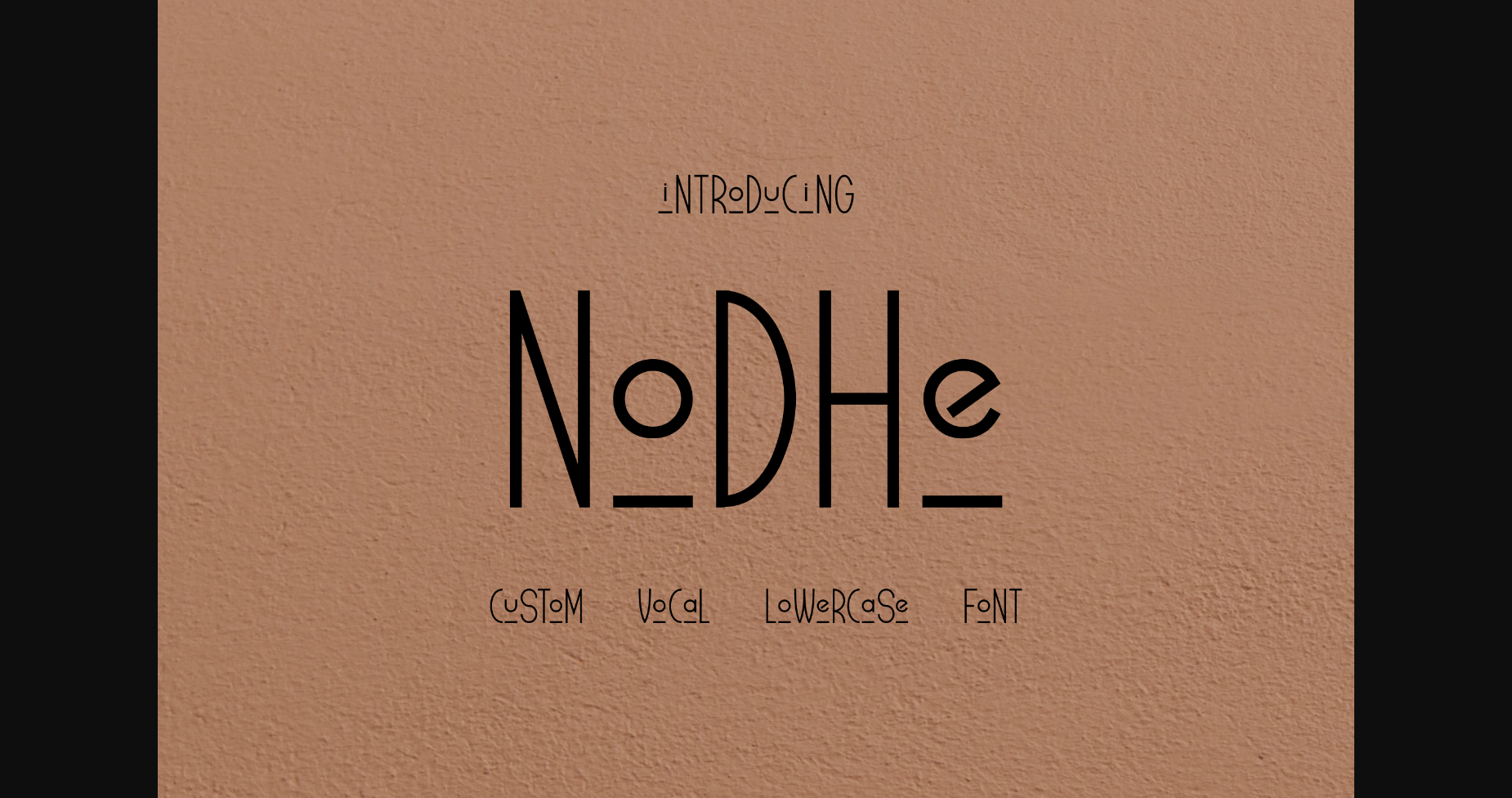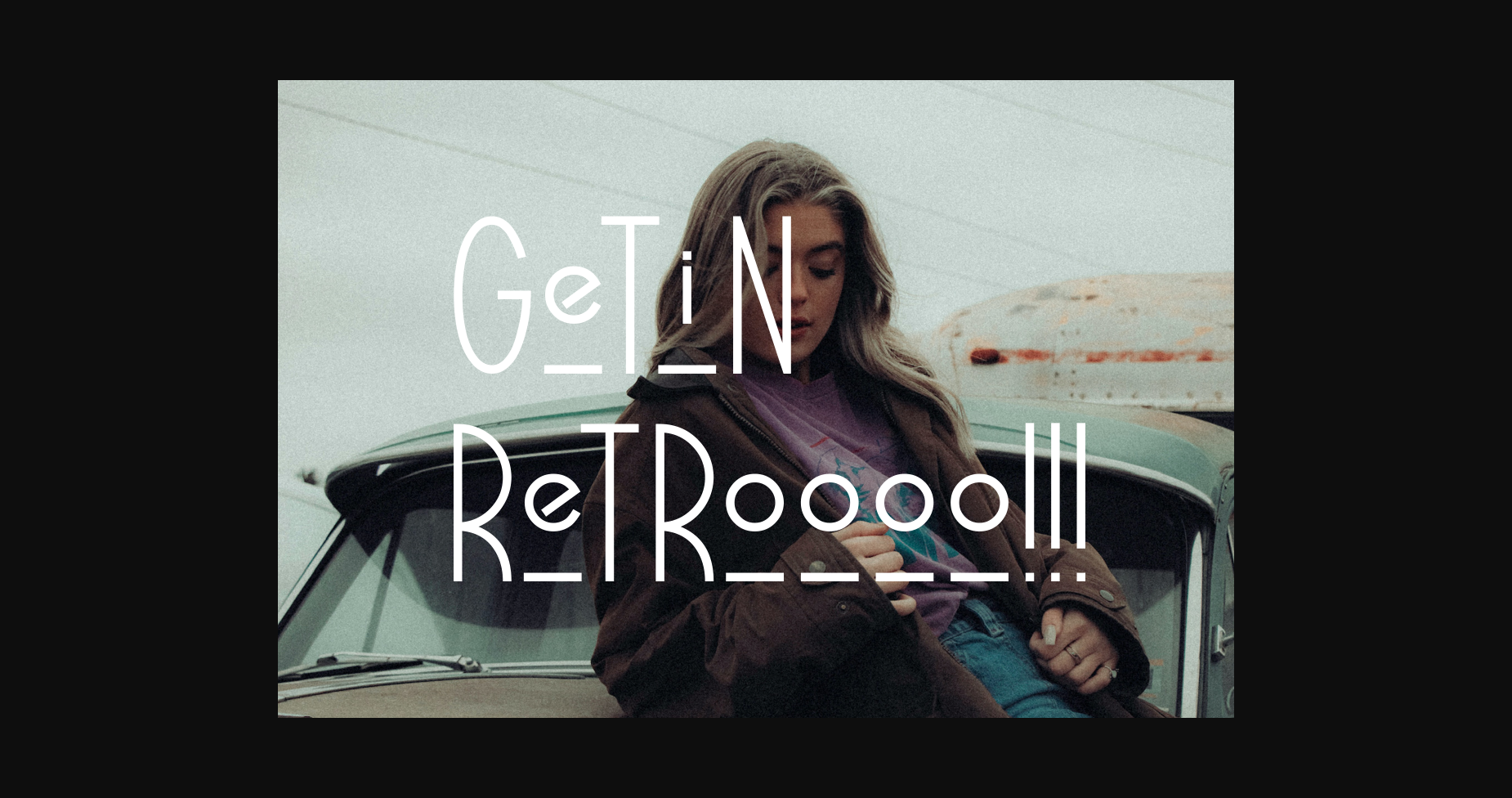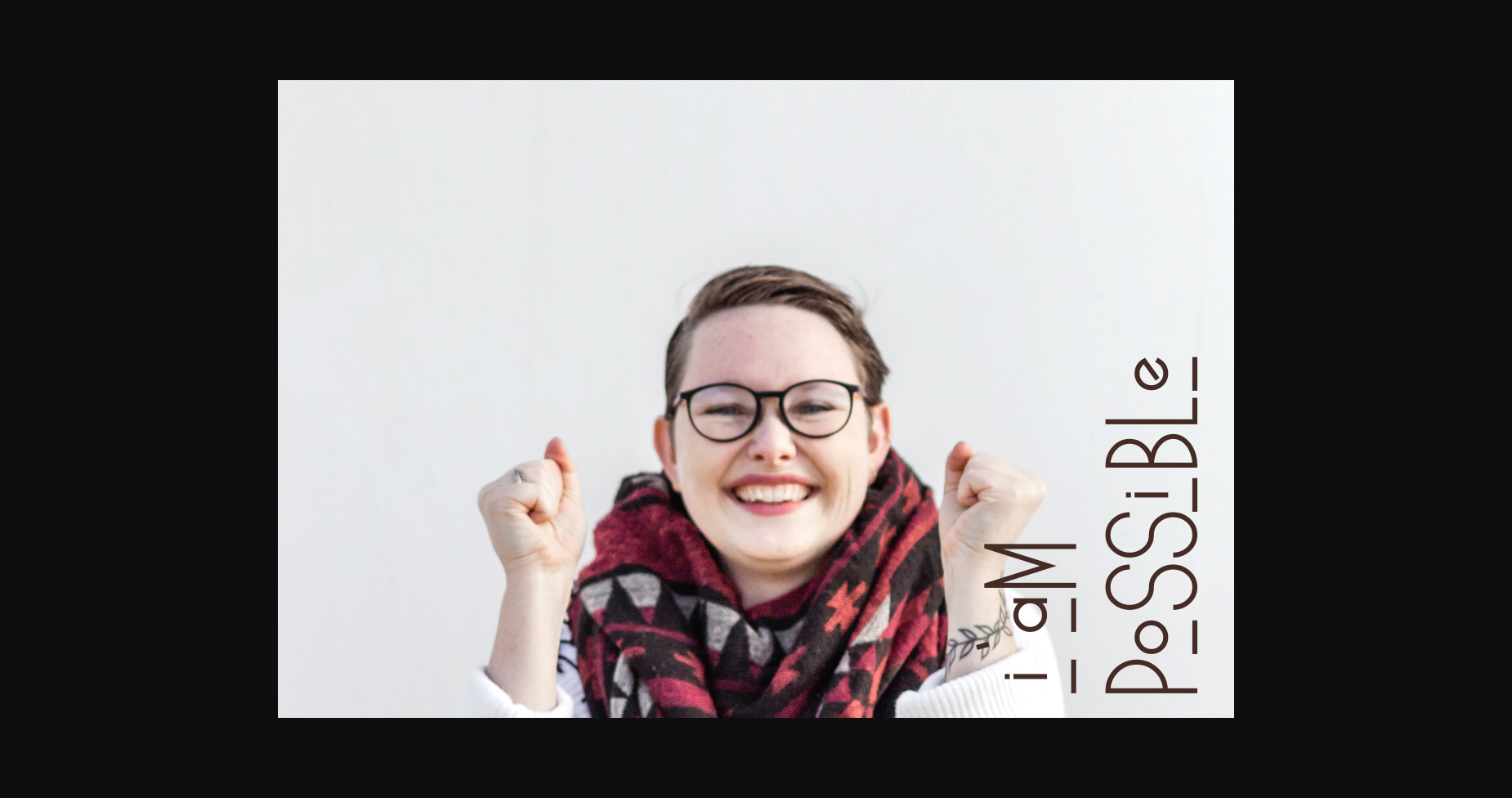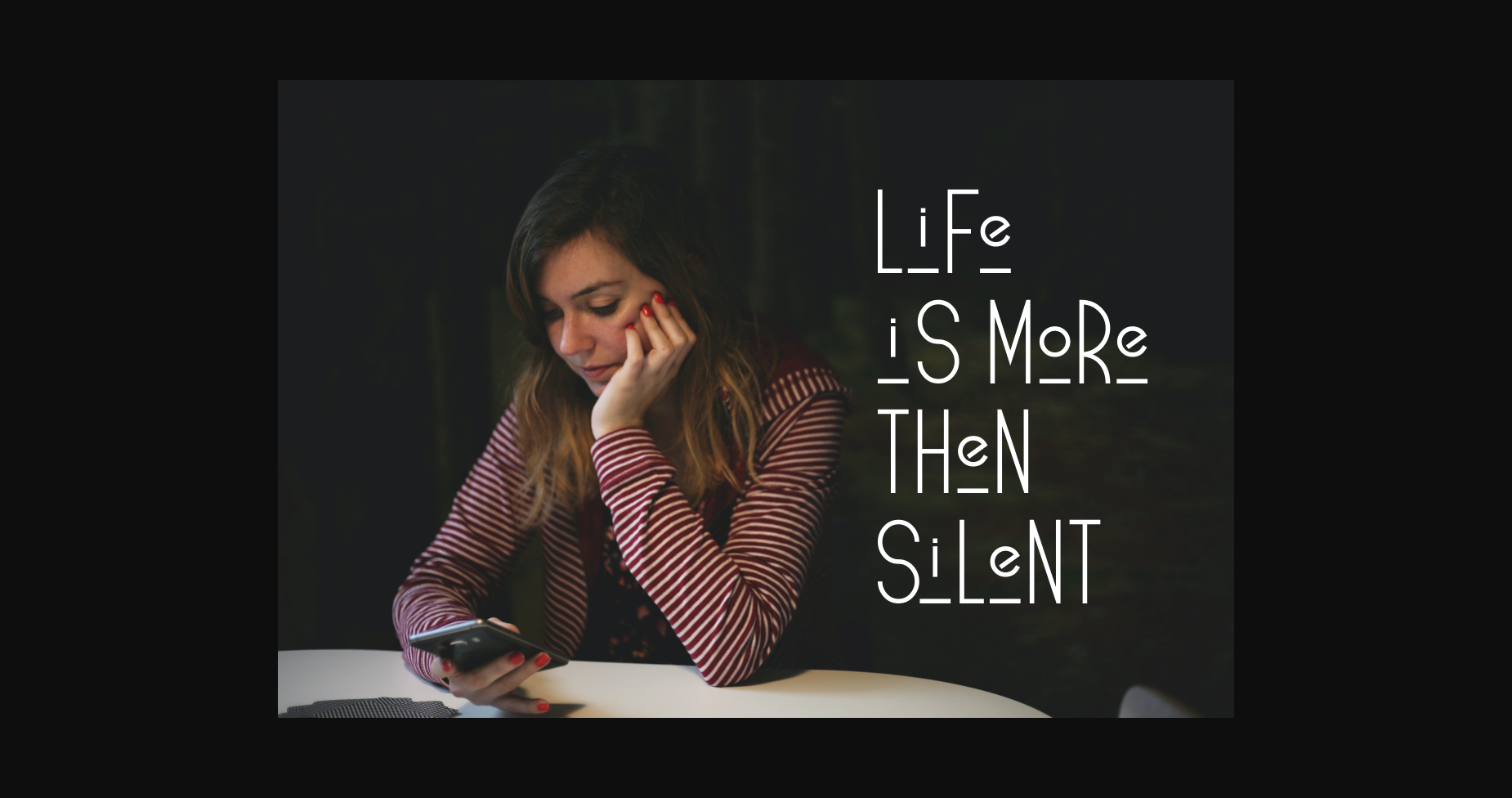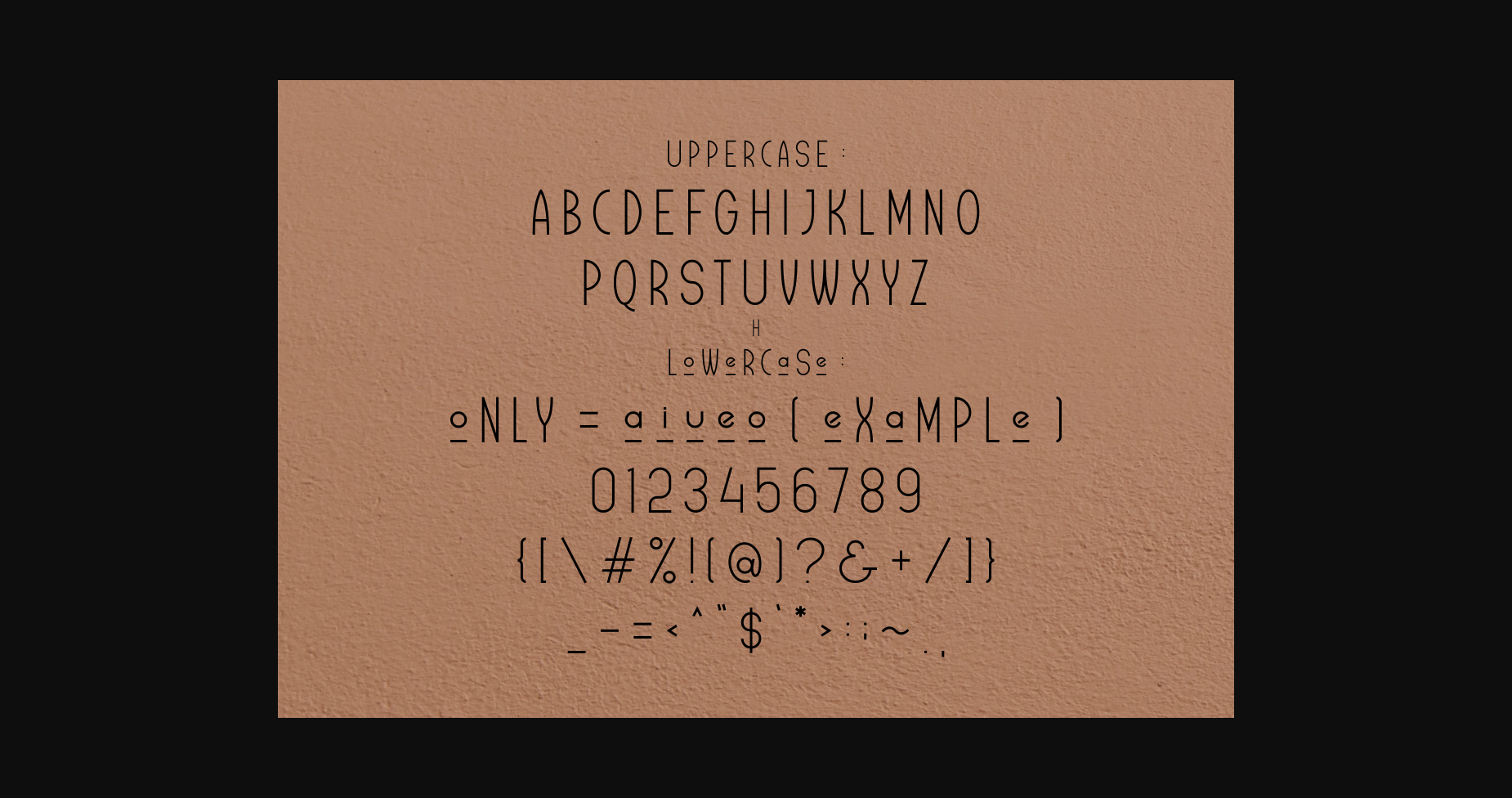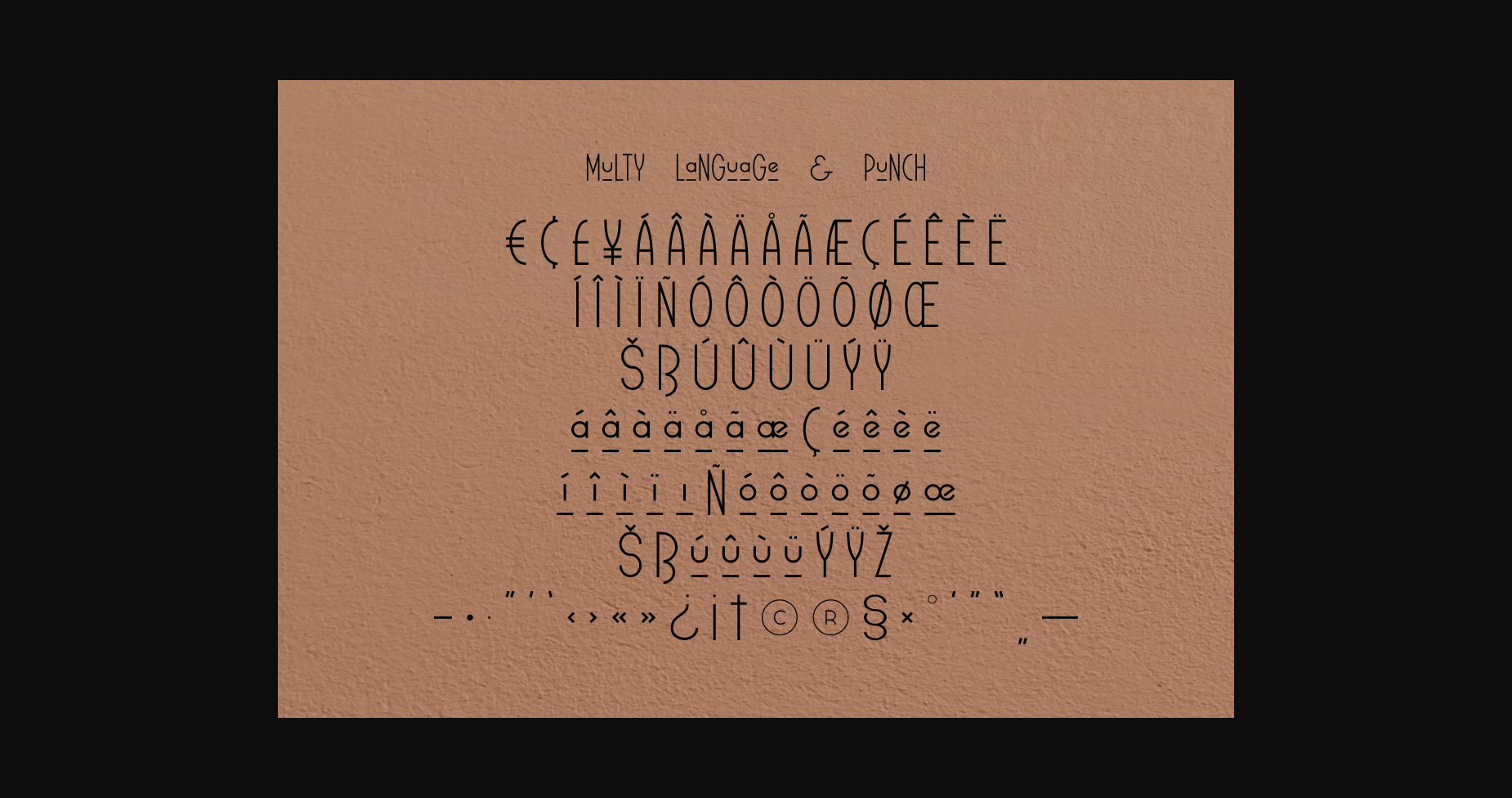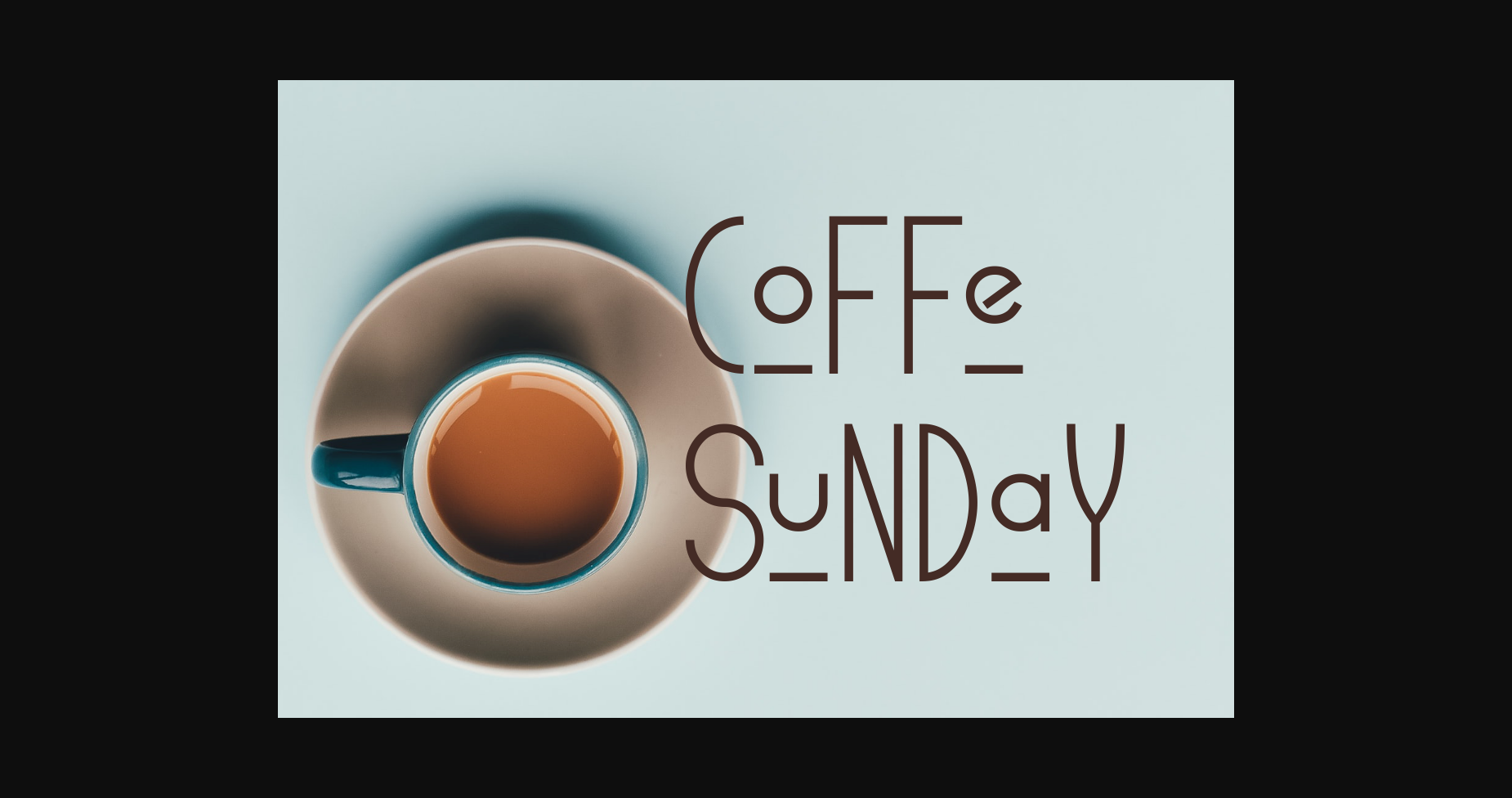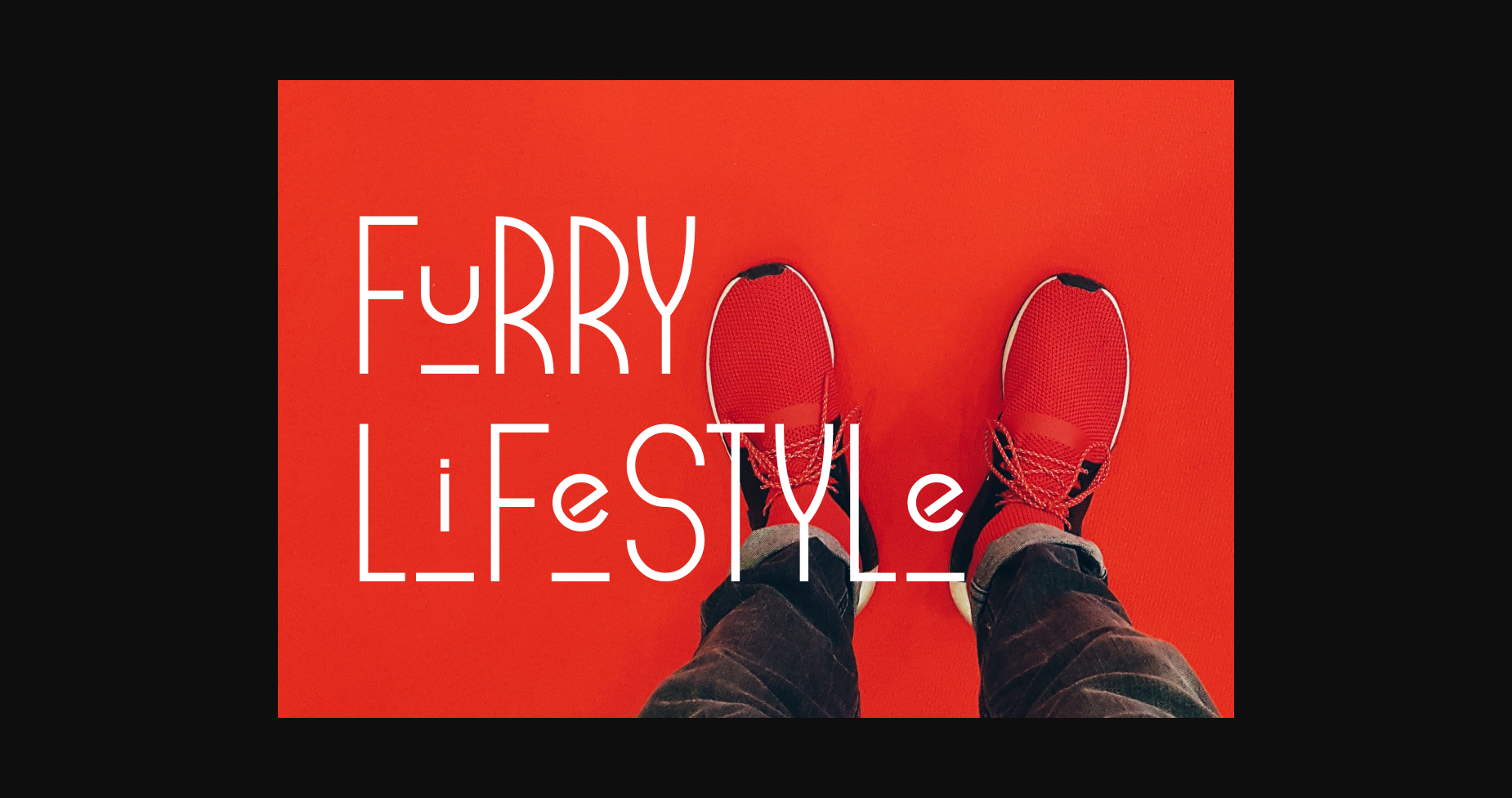
Nodhe Font
About Nodhe Font
NoDhe is a stylish and cool sans-serif font. No matter the topic, this font will be an incredible asset to your fonts’ library, as it has the potential to elevate any creation.